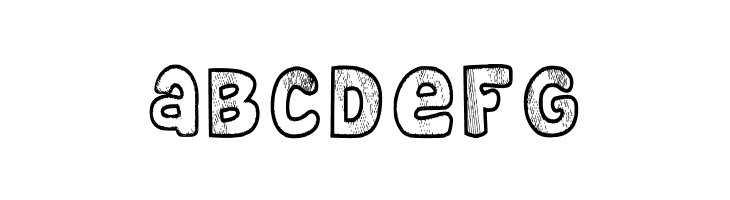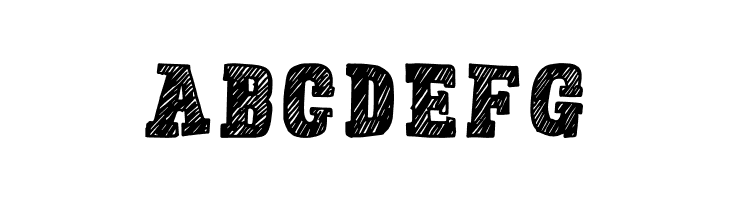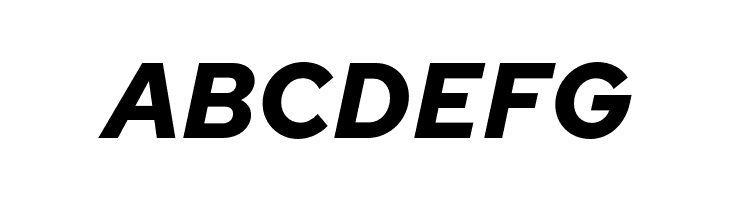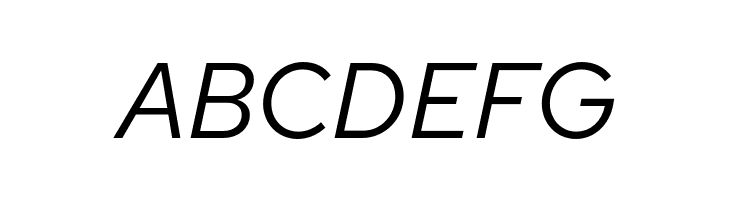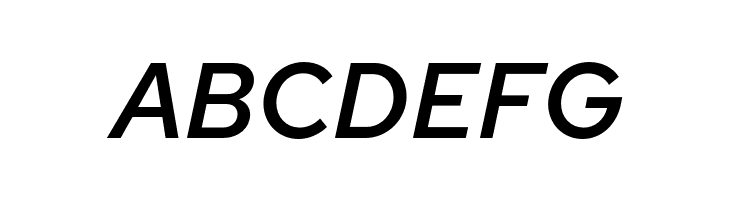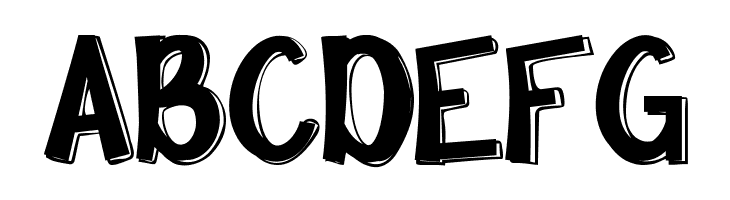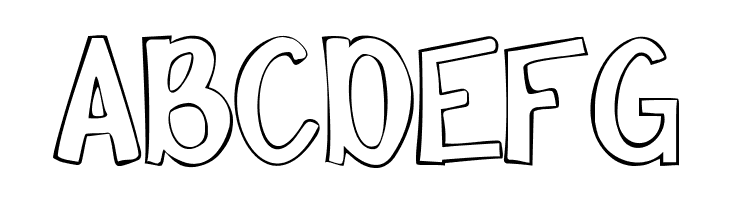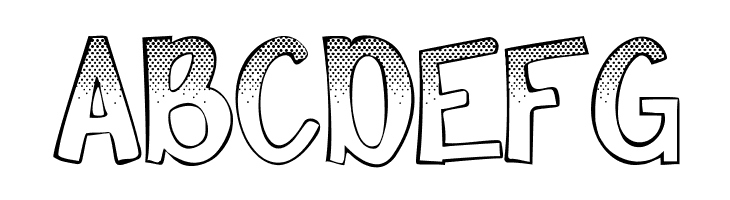
A playful, hatched bubble font with a textured, hand-drawn appearance.
A bold, playful font with a comic book style and hand-drawn appearance.
A playful, bold outline font with a comic book style.
A bold, textured comic-inspired font with a playful, hand-drawn style.
A bold, hand-drawn font with a scribbled texture, perfect for playful and creative designs.
A bold, italicized font with a modern and sleek appearance.
A modern, italic sans-serif font with clean lines and balanced spacing.
A modern, italic sans-serif font with medium weight and low contrast.
A bold, italicized font with a modern and clean design.
A modern, italic sans-serif font with clean lines and excellent legibility.
A modern, italicized typeface with clean lines and balanced proportions.
A modern, geometric sans-serif font with clean lines and excellent readability.